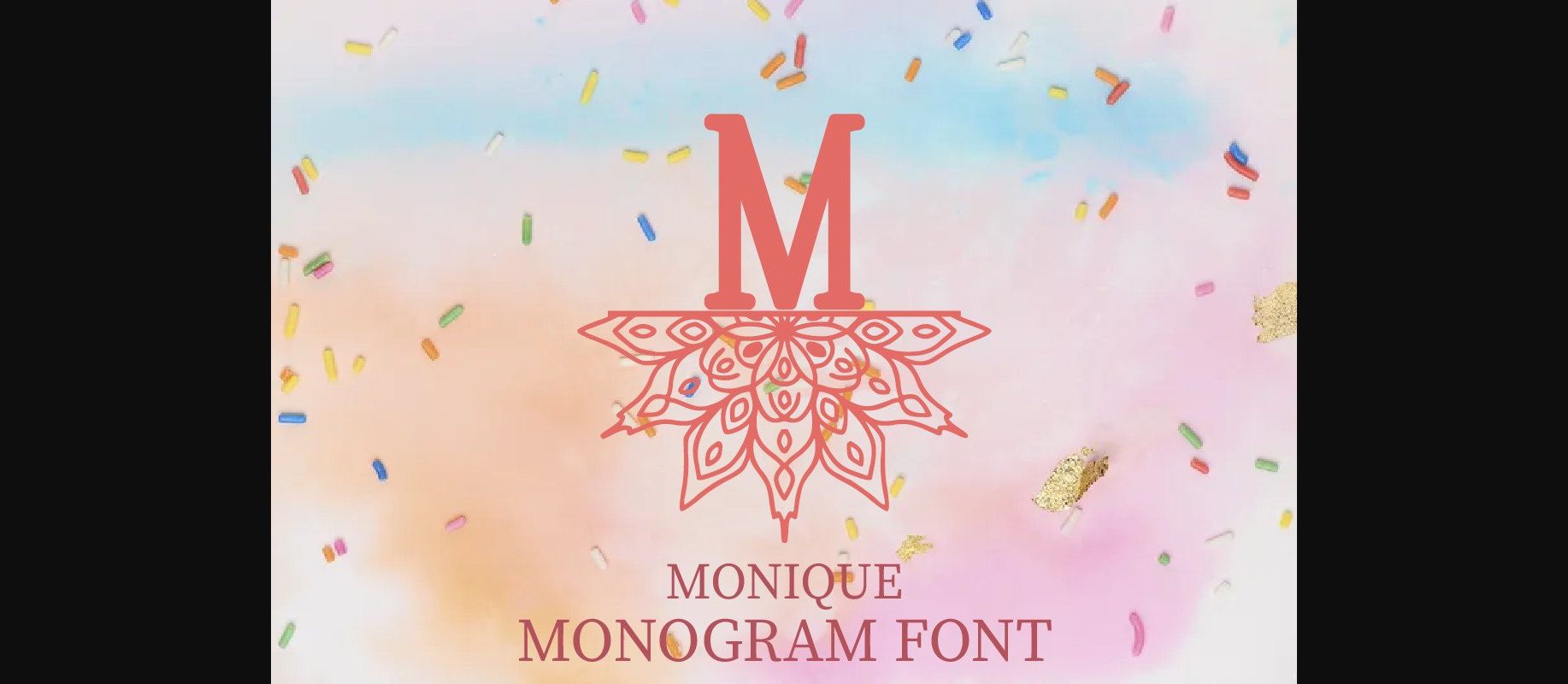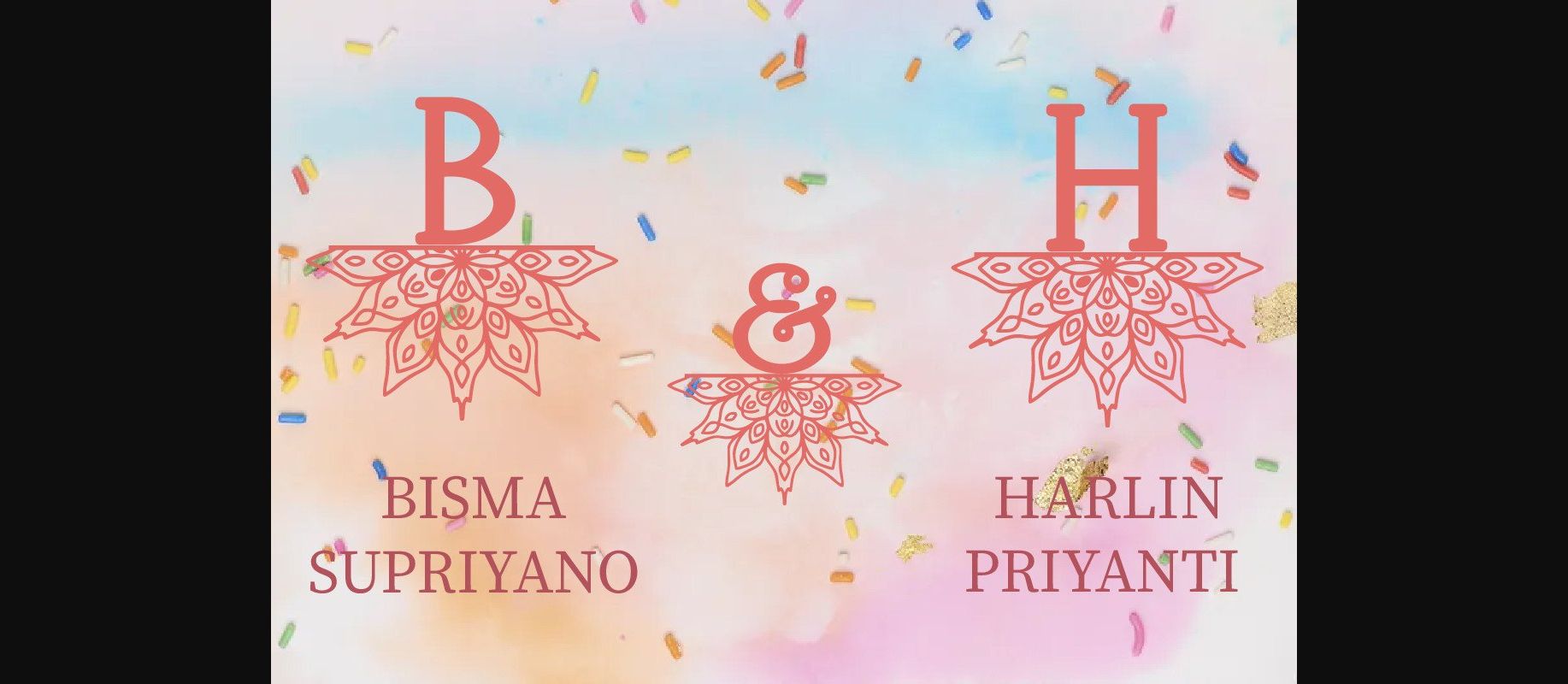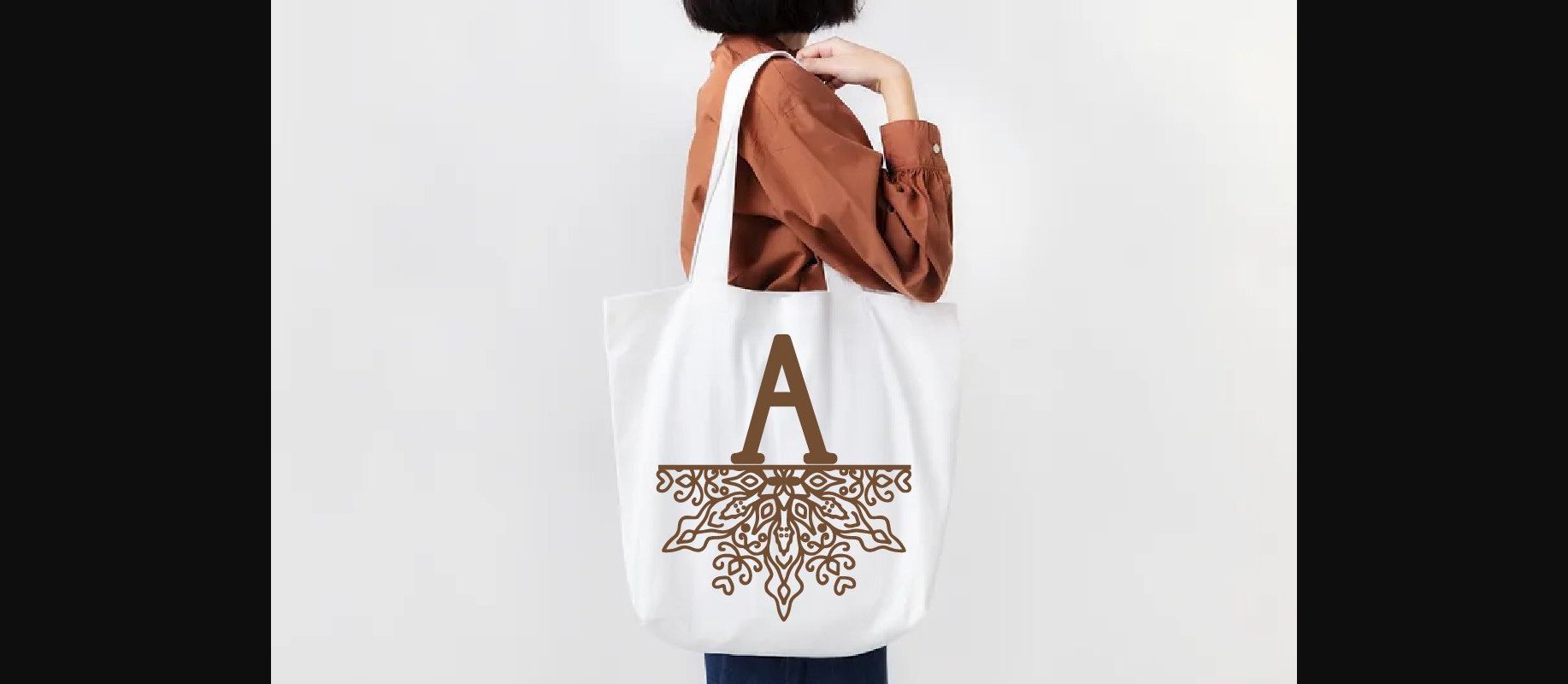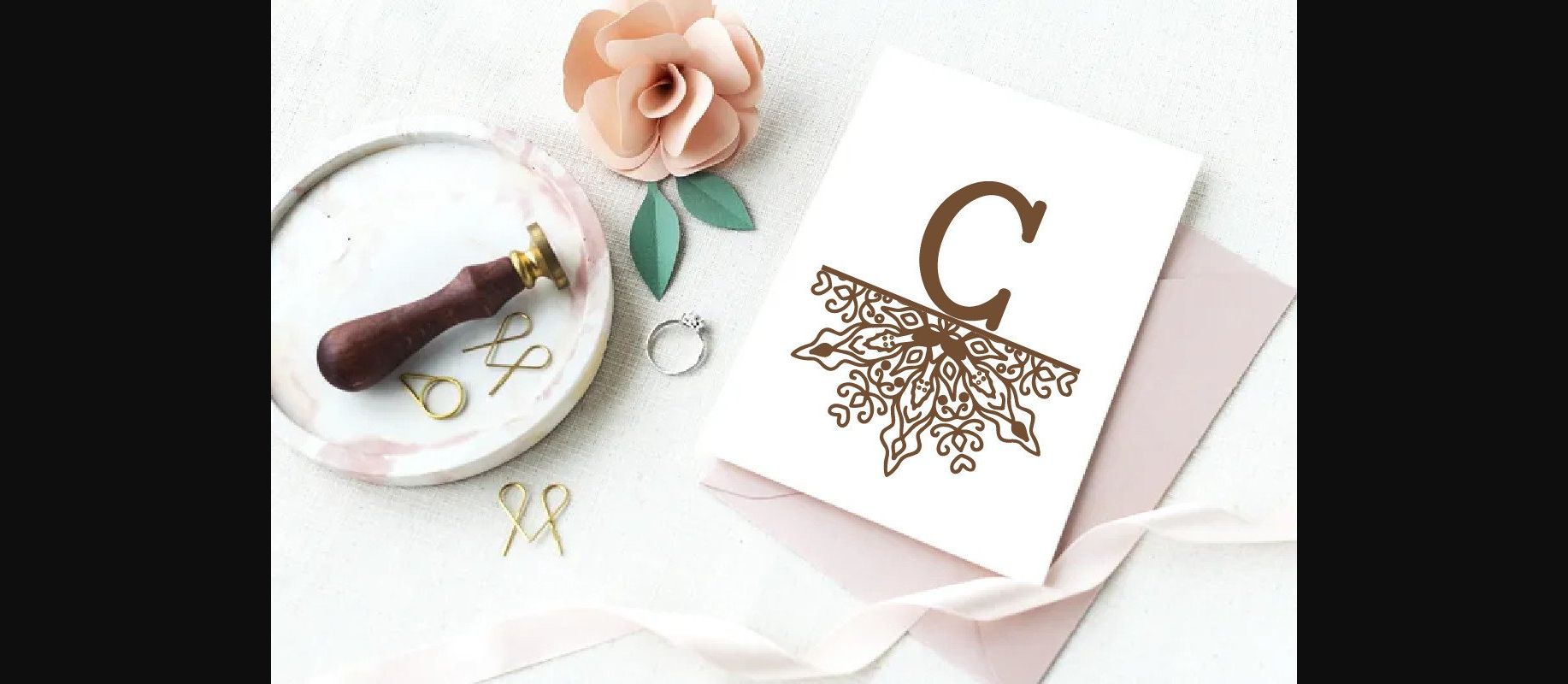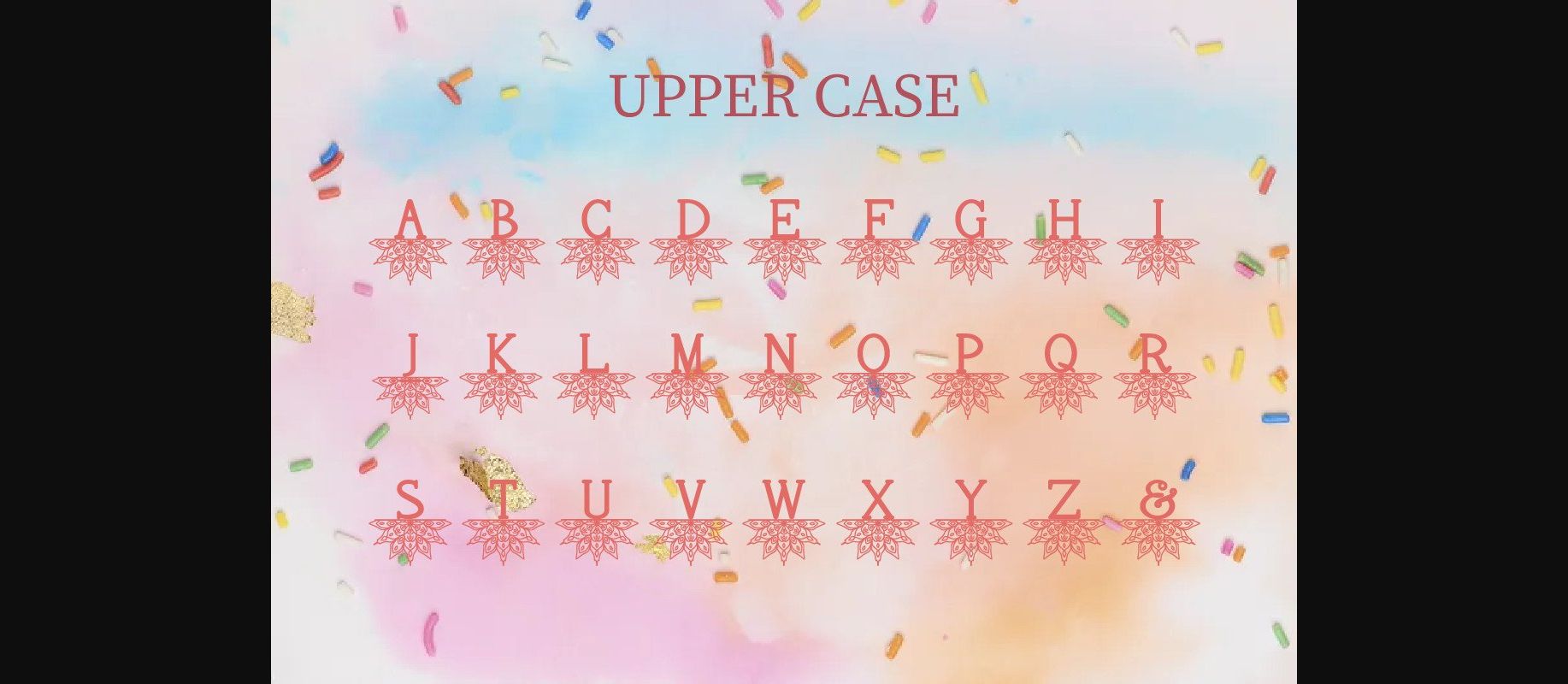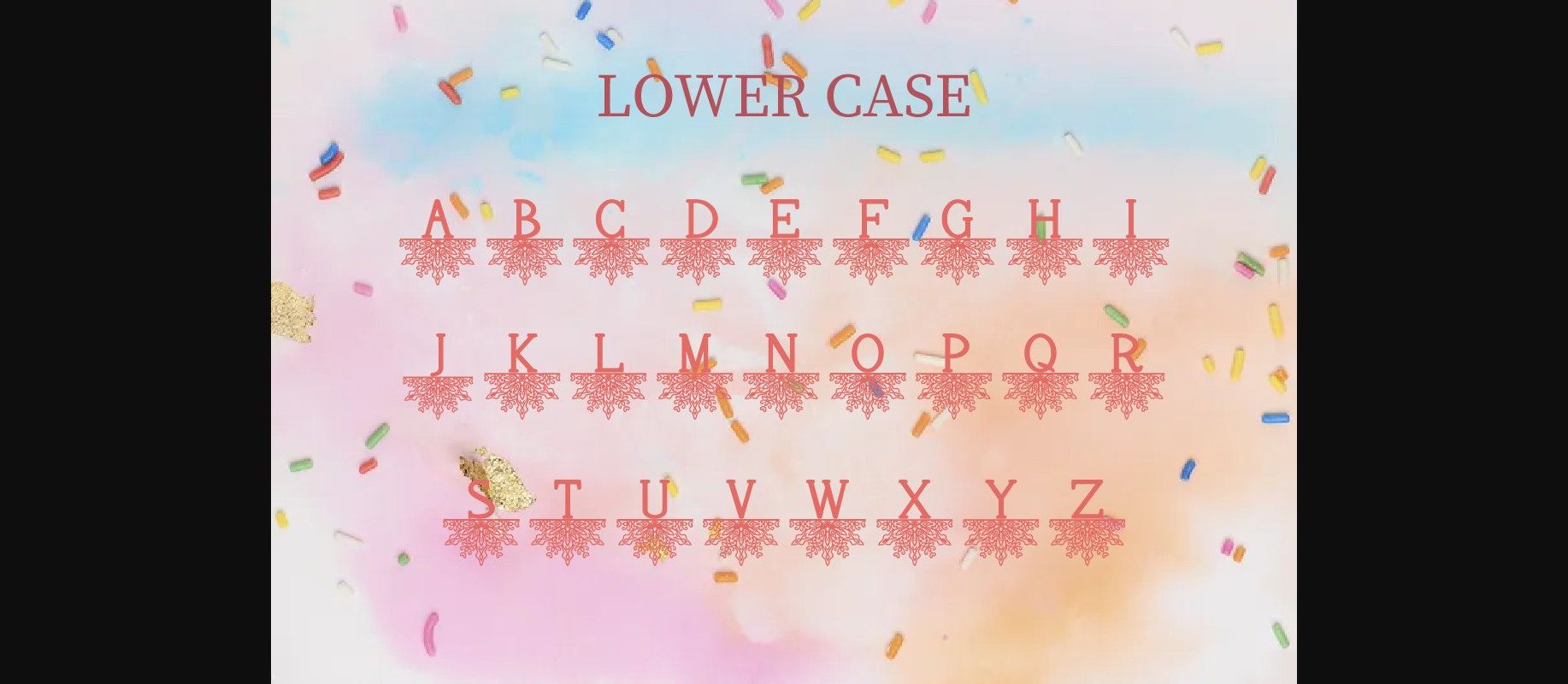
HomeDecorative FontsMonique Font Decorative Fonts Monique Font FacebookXPinterestWhatsApp 1 of 8 ... Monique Font Poster 2... Monique Font Poster 3... Monique Font Poster 4... Monique Font Poster 5... Monique Font Poster 6... Monique Font Poster 7... Monique Font Poster 8... About Monique Font Monique is a decorative font with Mandala embellishments. This font can enhance your creative projects such as earrings, t-shirts, Christmas, mugs, printing, Cricut, and many other creative projects. DOWNLOAD NOW People also explored Eva Script Font Riley Font Bohemila Font Barracuda Script Font Lestya Font Chic Italic Font Hinatta Beauty Script Font Fish Fighter Font Melintyca Font 267 0 TagsMoniqueMonique Font Previous articleBuffalo Plaid FontNext articleMagic Unicorn Font LEAVE A REPLY Cancel reply Comment: Please enter your comment! Name:* Please enter your name here Email:* You have entered an incorrect email address! Please enter your email address here Website: Save my name, email, and website in this browser for the next time I comment. Personal Use Free Solaria Personal Use Free Read more about this font GoodFay Personal Use Free Read more about this font Playground Clip Art Personal Use Free Read more about this font Banana Valentine Personal Use Free Read more about this font BLOG Free vs Paid Fonts: Why Investing in Premium Fonts Is Worth It Free vs Paid Fonts: Why Premium Fonts Are Worth It in 2025 The debate of free vs paid fonts continues in the design world. While... How to Cut Any Font on Cricut: Convert a Font to SVG (Free) Modern Sans-Serif Fonts That Brands Love in 2025 Top 10 Handwritten Fonts That Elevate Your Designs